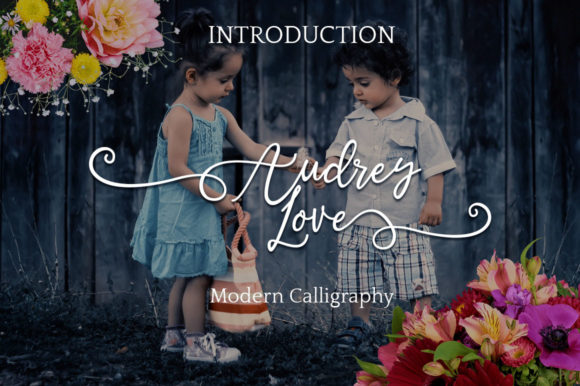
The Audrey Love Font: A Stunning Handwritten Addition to Your Design Arsenal
I’ll never forget the time I was working on a branding project for a boutique client, and I just couldn’t find the perfect font to capture the essence of her elegant yet playful vibe. That was until I stumbled upon the Audrey Love font. It was like a breath of fresh air – a beautiful, bold, and stunning handwritten font that instantly elevated my design game. If you’re a designer, crafter, or creative hobbyist looking to add a touch of sophistication to your projects, you’re in for a treat.
A Personal Review: What I Love About Audrey Love
Here’s what makes Audrey Love a standout font in my book:
- ✨ Unique and eye-catching: The bold feel of Audrey Love makes it perfect for headlines, titles, and emphasis text.
- ✅ Versatile: It works beautifully for a wide range of design projects, from branding and packaging to invitations and social media graphics.
- 💫 Elegant yet playful: The handwritten touch gives it a friendly, approachable feel that’s hard to achieve with traditional fonts.
While Audrey Love is an amazing font, there are a few things to keep in mind:
- 🤔 Legibility at small sizes: Like many script fonts, Audrey Love can get a bit tricky to read at very small sizes. Make sure to test it in your design to ensure it’s legible.
- ⚠️ Overuse: With a font as beautiful as Audrey Love, it’s easy to get carried away. Remember to balance it with simpler fonts to maintain visual hierarchy.
The Story Behind Audrey Love
While the origins of Audrey Love might be shrouded in mystery, it’s easy to imagine that it was crafted with love and care by a typographer who wanted to create a font that would inspire creativity and joy. Perhaps they drew inspiration from classic calligraphy and modern script fonts, blending them into a unique and stunning design.
| Font Name | Audrey Love Font |
| Author | famco.typefoundry |
| What makes Audrey Love unique? | Audrey Love stands out for its bold feel and elegant yet playful handwritten style, making it perfect for designs that need a touch of sophistication. |
| Is Audrey Love difficult to read? | Like many script fonts, Audrey Love can be challenging to read at very small sizes. It’s best used for headlines, titles, and emphasis text. |